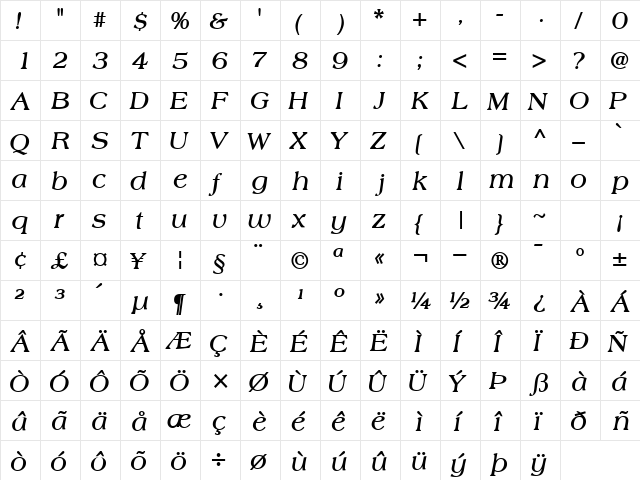
CountrysideSSK BoldItalic Font Preview
CountrysideSSK BoldItalic
CountrysideSSK BoldItalic Font Details
Design Context for CountrysideSSK Typeface
CountrysideSSK is a composed and adaptable typeface that performs quietly and consistently across a wide range of design contexts. The dynamic lean of this cut emphasises speed and emphasis in any layout. Its bold stroke weight gives it real presence on the page.
Pro Tip: Use CountrysideSSK for emphasis, pull quotes, and subheadings where its slanted energy can add rhythm to the layout.